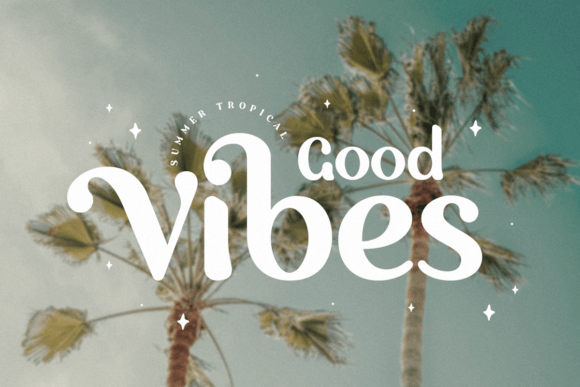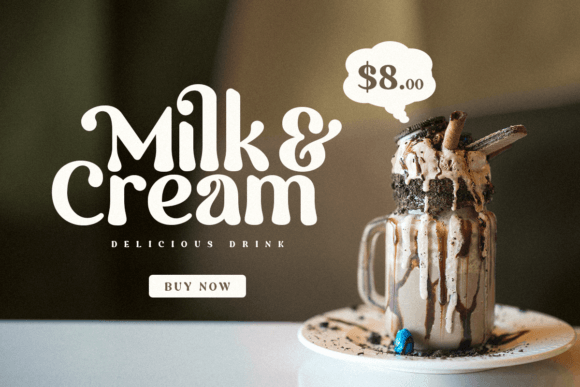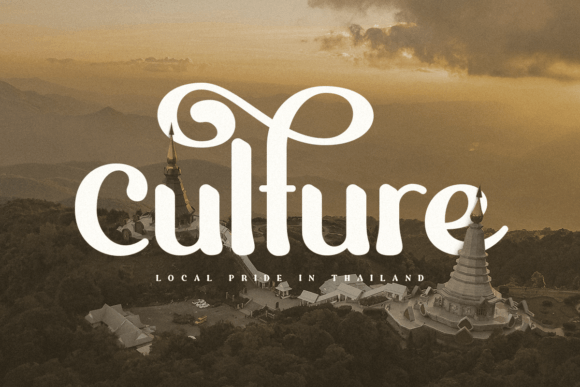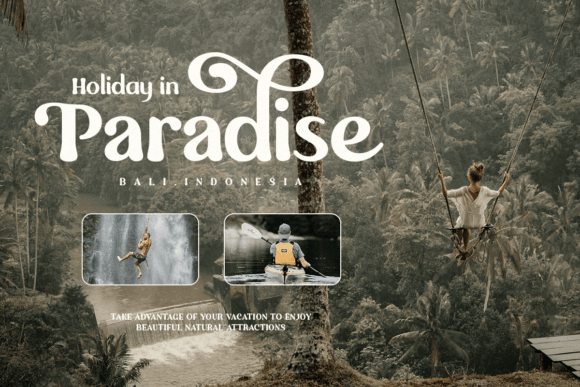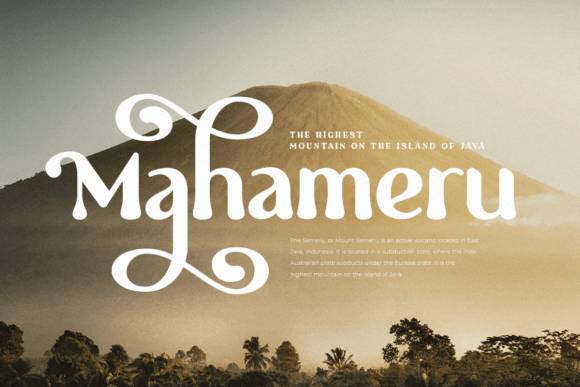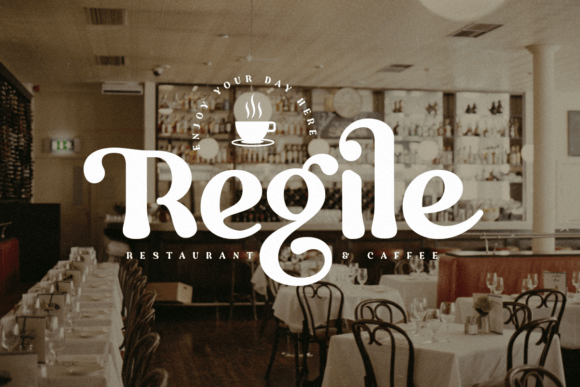
Introducing Foghe Font: Elevate Your Designs with Timeless Sophistication
In the world of typography, fonts play a crucial role in conveying the tone and personality of a brand or design. For designers and crafters looking to add a touch of vintage elegance to their work, Foghe Font is an excellent choice. This stylish, slightly retro display font is designed to capture the essence of classic sophistication, making it perfect for creating standout headlines, classic branding, and eye-catching posters.
The Unique Charm of Foghe Font
Foghe Font boasts bold, distinctive letterforms that are sure to grab attention. Its subtle nostalgic flair adds a touch of warmth and character to any design, making it ideal for projects that require a sense of history and tradition. Whether you’re working on a logo, brochure, or social media graphic, Foghe Font is sure to elevate your design with its timeless sophistication.
Key Features of Foghe Font
- Stylish and Retro: Foghe Font’s unique blend of style and nostalgia makes it perfect for designers looking to create vintage-inspired designs.
- Bold and Distinctive: The font’s bold letterforms ensure that your headlines and titles will stand out from the crowd.
- Subtle Nostalgic Flair: Foghe Font’s subtle nostalgic touch adds warmth and character to any design.
- Timeless Sophistication: The font’s classic elegance ensures that your designs will remain timeless and sophisticated.
Perfect for Standout Headlines and Classic Branding
Foghe Font is specifically designed for use in headlines, titles, and branding projects. Its bold and distinctive letterforms make it perfect for creating eye-catching posters, logos, and advertisements. The font’s subtle nostalgic flair also makes it suitable for use in packaging, labels, and other design projects that require a touch of classic elegance.
Tips for Using Foghe Font Effectively
- Pair with Modern Fonts: Combine Foghe Font with modern fonts to create a striking contrast and add visual interest to your design.
- Use in Headlines and Titles: Foghe Font is perfect for use in headlines and titles, where its bold and distinctive letterforms can shine.
- Experiment with Colors: Try pairing Foghe Font with different colors to create a unique and eye-catching design.
- Keep it Simple: Don’t overcomplicate your design – Foghe Font’s classic elegance is best showcased when used in a simple and clean design.
Why Choose Foghe Font?
Foghe Font is an excellent choice for designers and crafters looking to add a touch of vintage elegance to their work. Its unique blend of style, nostalgia, and timeless sophistication makes it perfect for a wide range of design projects. With Foghe Font, you can:
- Create Standout Headlines: Foghe Font’s bold and distinctive letterforms ensure that your headlines will grab attention.
- Elevate Your Branding: The font’s classic elegance and subtle nostalgic flair make it perfect for creating timeless and sophisticated branding.
- Add a Touch of Sophistication: Foghe Font’s unique charm and character add a touch of sophistication to any design.
In conclusion, Foghe Font is a stylish and versatile display font that is perfect for designers and crafters looking to add a touch of vintage elegance to their work. Its bold and distinctive letterforms, subtle nostalgic flair, and timeless sophistication make it an excellent choice for creating standout headlines, classic branding, and eye-catching posters. With Foghe Font, you can elevate your designs and add a touch of timeless sophistication.